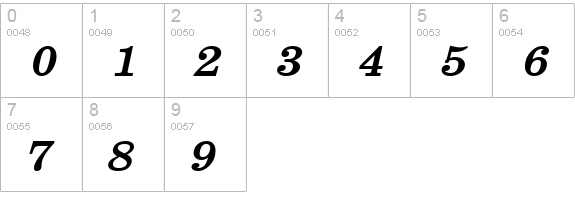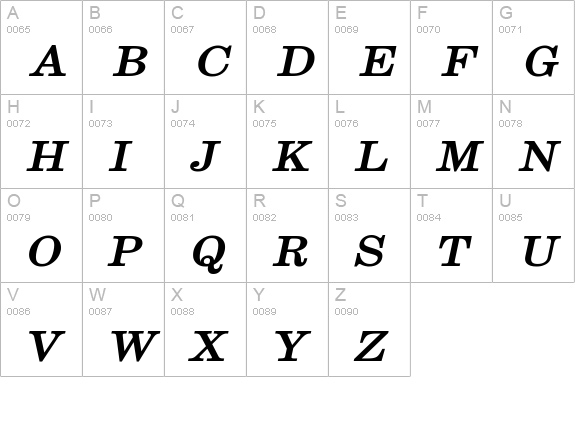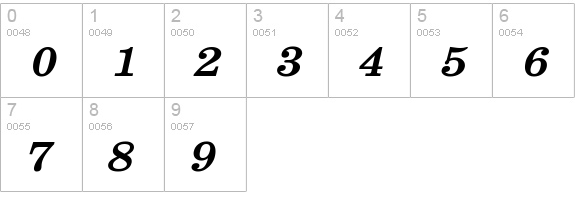
Annual-Extended Bold Italic is a strong, high-contrast, extended-width, italic variant in the Annual typeface family \xE2\x80\x94 well suited to headlines, attention-grabbing titles, and strong calls-to-action.
The Annual-Extended Bold Italic font exudes a striking blend of boldness and elegance, making it a versatile choice for a wide range of design projects. Its sleek and modern aesthetic is perfect for conveying a sense of sophistication and professionalism. The bold italic style adds a touch of flair and drama, making your text stand out with confidence. Best of all, this exquisite font is available for free download at FontsMarket.com. Whether you're working on branding materials, posters, invitations, or any other creative project, the Annual-Extended Bold Italic font will elevate your design with its bold yet refined presence. Embrace the power of typography and make a statement with this exceptional typeface.